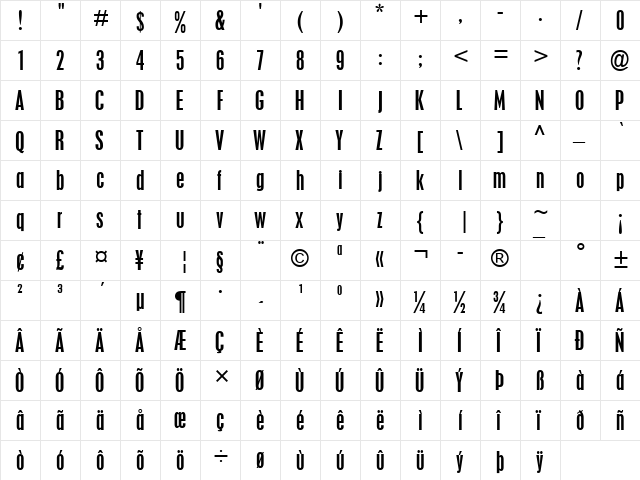
Placard MT Condensed Regular
Design Context for Placard MT Condensed Typeface
Placard MT Condensed takes a measured approach to typography — its balanced proportions and neutral character make it a reliable workhorse for both digital and print work. The condensed width makes it efficient for tight spaces without sacrificing legibility.